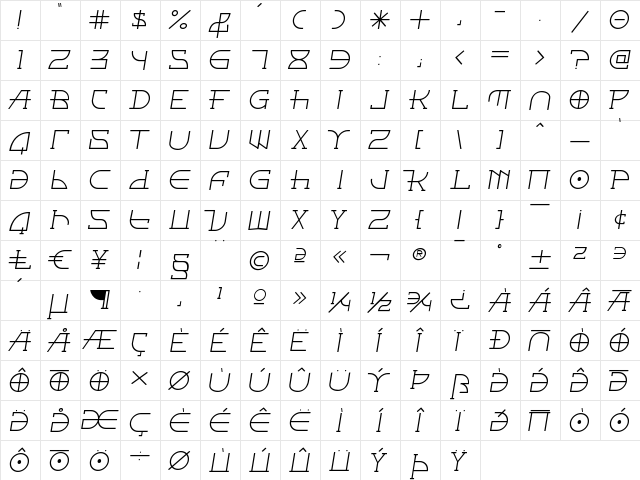
Fontcop II Regular
| Designer | Apostrophe (') and Alejandro Paul. |
Design Context for Fontcop II Typeface
Fontcop II offers clean, dependable letterforms without strong stylistic allegiance, making it a practical choice for designers who need flexibility.